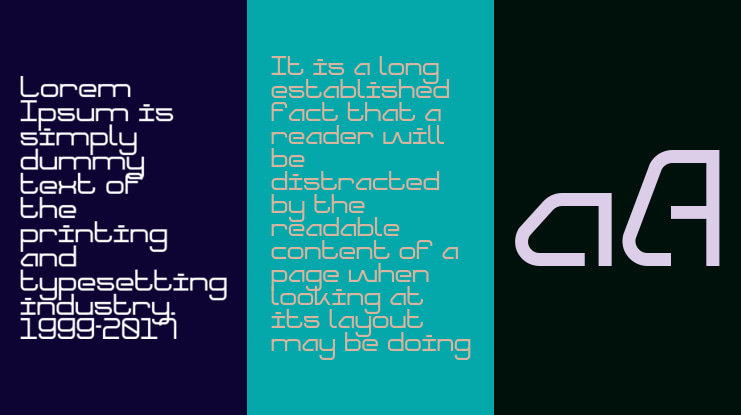
Stellar Font
STELLAR - Futuristic Display Font
Bring a touch of futuristic and tech to your designs with this meticulously crafted font collection. Perfect for adding a Sci-fi vibes to your branding, packaging, logos, and more.